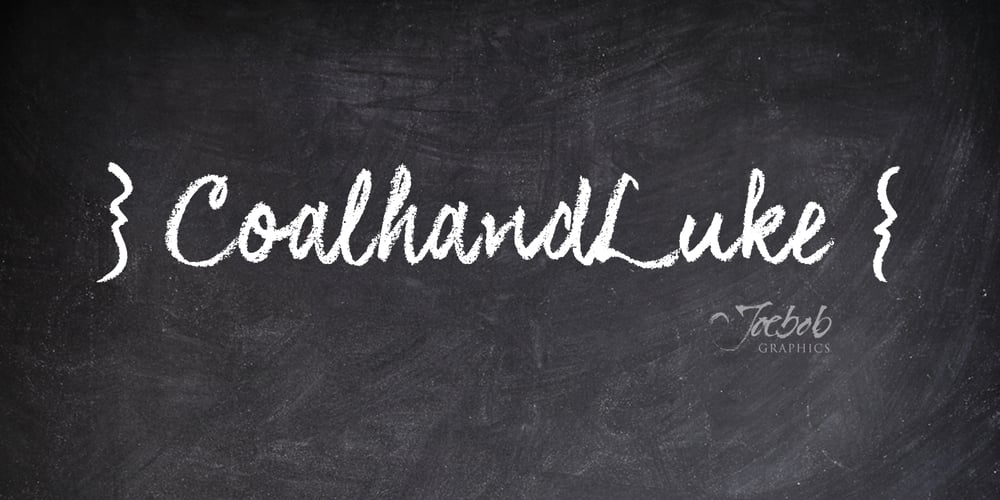
CoalhandLuke Font Family was designed by Jeroen “Joebob” van der Ham and published by JOEBOB graphics. CoalhandLuke contains 2 styles and family package options. CoalhandLuke is a handwritten font I made by using a piece of charcoal. The Pro version contains an additional set of Cyrillic and Greek characters.